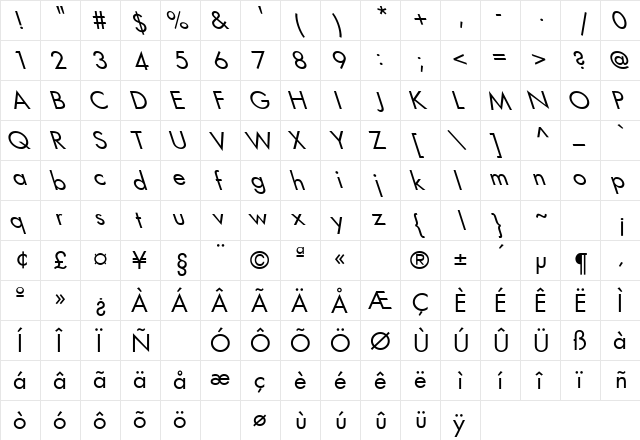
Futura-Book-Lefty Regular
Design Context for Futura-Book-Lefty Typeface
Futura-Book-Lefty has a distinctly futuristic character, with geometric precision and clean angles that feel at home in technology, gaming, and sci-fi contexts.
Pro Tip: Use Futura-Book-Lefty in combination with a neutral sans for body text. Let it define the brand voice in headlines while keeping reading comfortable elsewhere.